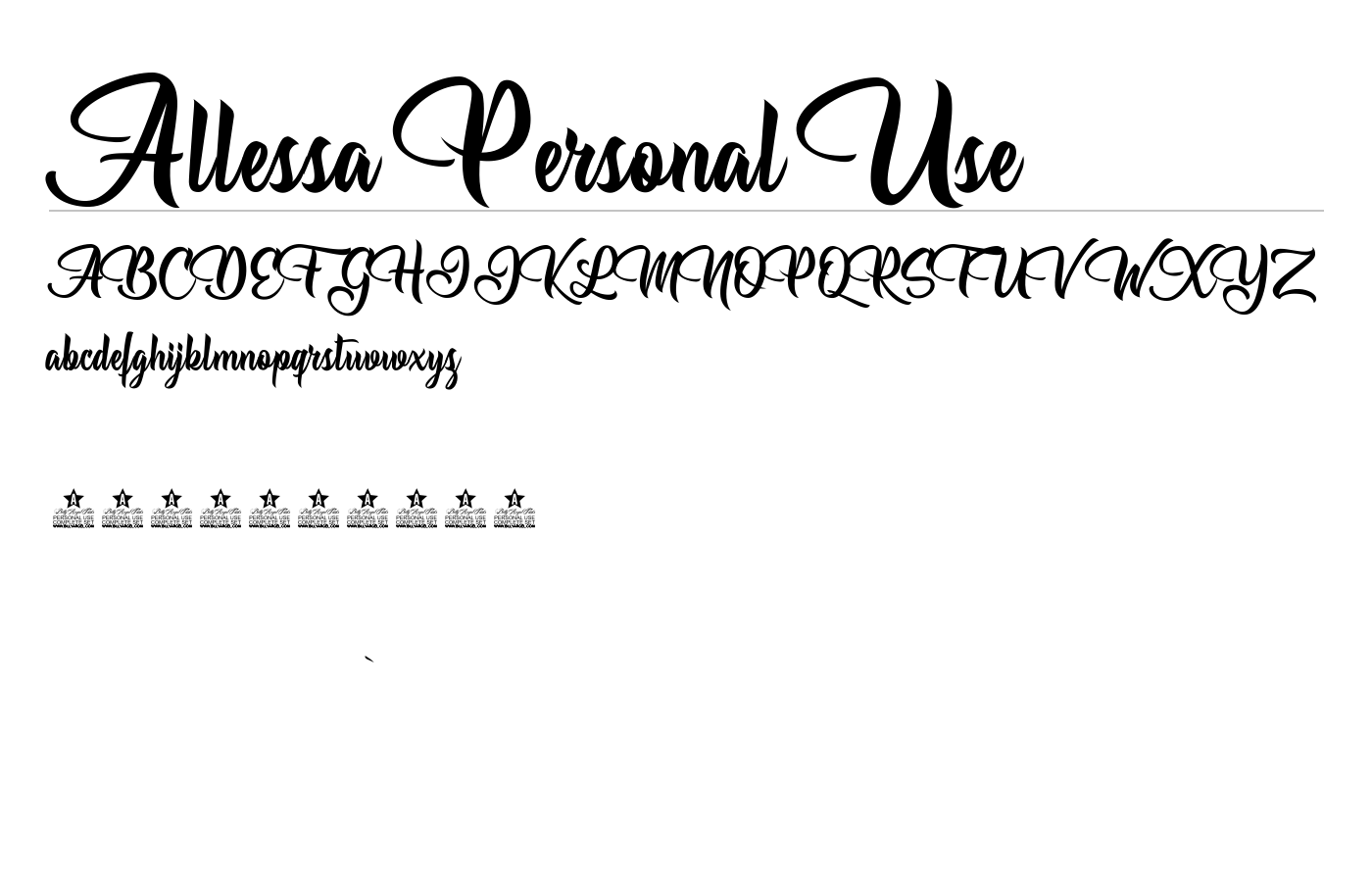
Allessa Personal Use is an elegant script font with fluid, sweeping strokes and a graceful, handwritten feel. Its high contrast and decorative curves give it a sophisticated and stylish personality, making it ideal for branding, invitations, and luxury packaging where a personal, refined touch is desired. This font works best in large sizes for headlines or logos where its ornamental details can shine.
Allessa Personal Use Font
About Allessa Personal Use Font